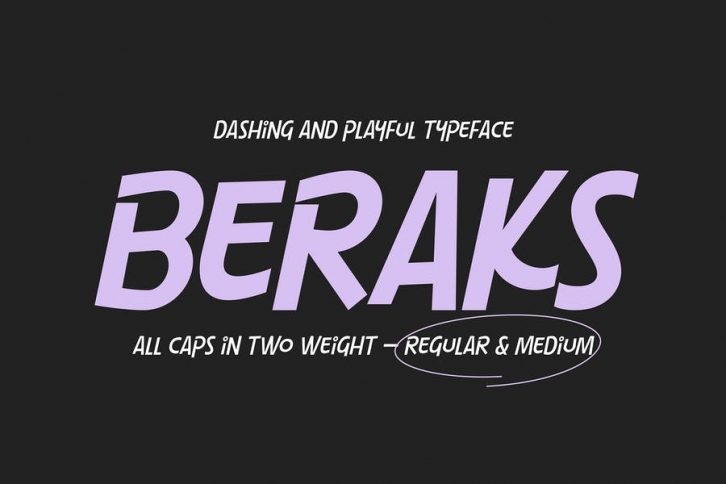
Beraks comes in two TWO WEIGHT — REGULAR & MEDIUM
This complete package is perfectly for all your creative work such as branding projects, packaging design, ads and more.